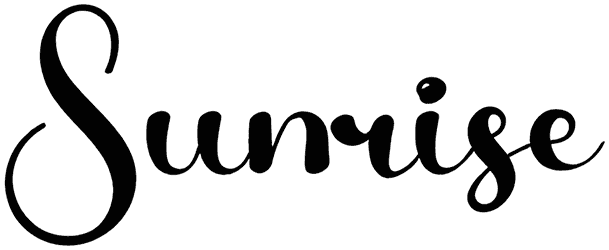
Sunrise Font
Sunrise is a beautiful script font that can be used in elegantly designed books, documents, headers, artwork, and other projects. It may improve the look of any structure by giving it a refined air. It’s a contemporary, eye-catching font that’s sure to create an impact.
Sunrise is a flowing handwritten font, described by an elegant touch, perfect for your favorite projects. Fall in love with its incredibly distinct and timeless style and use it to create spectacular designs!